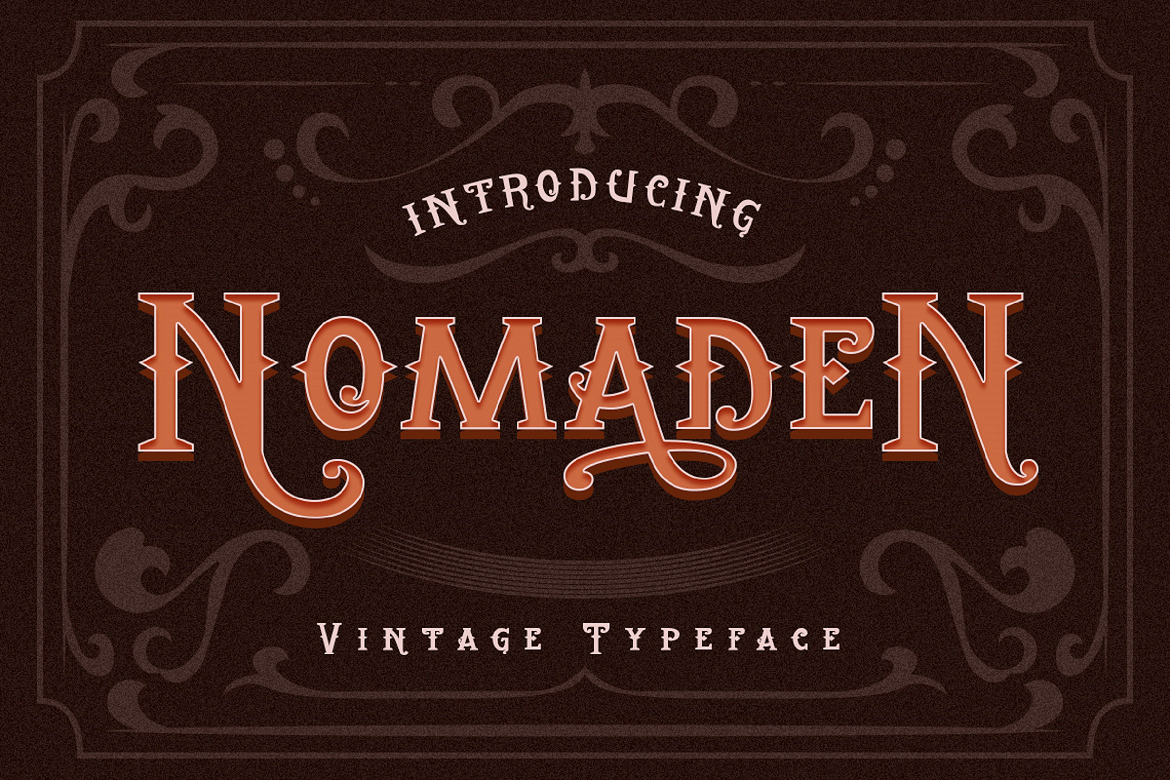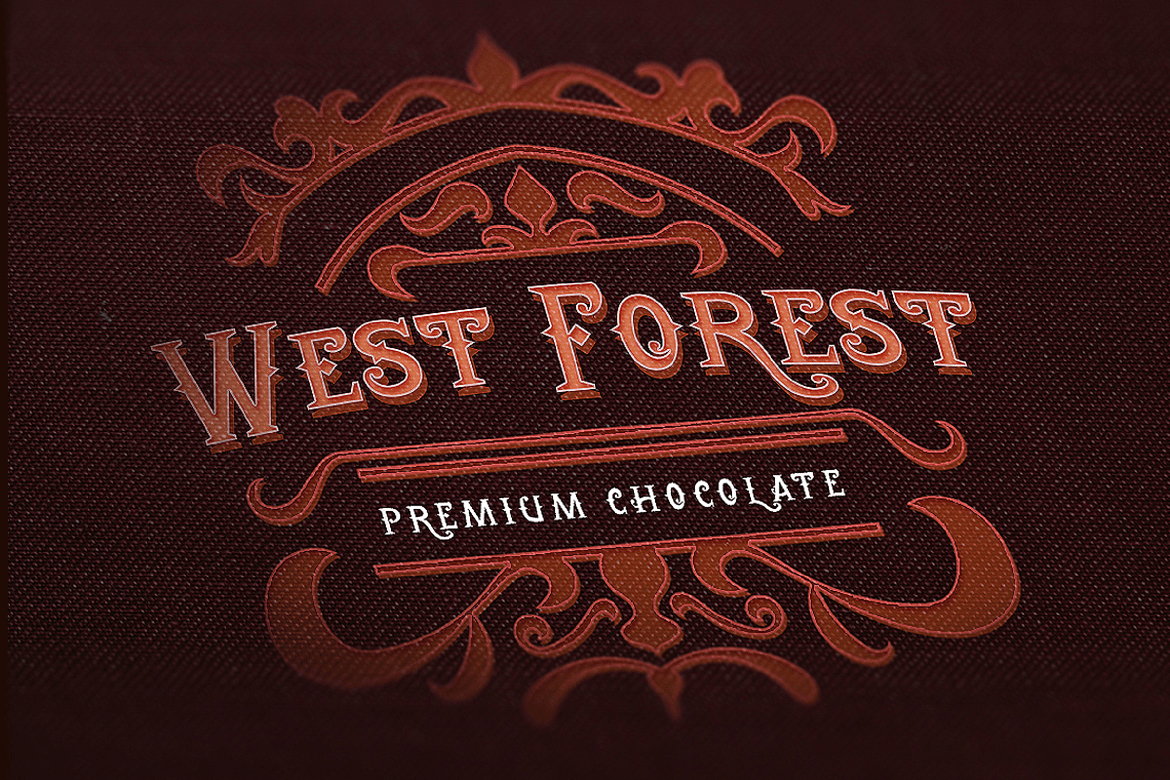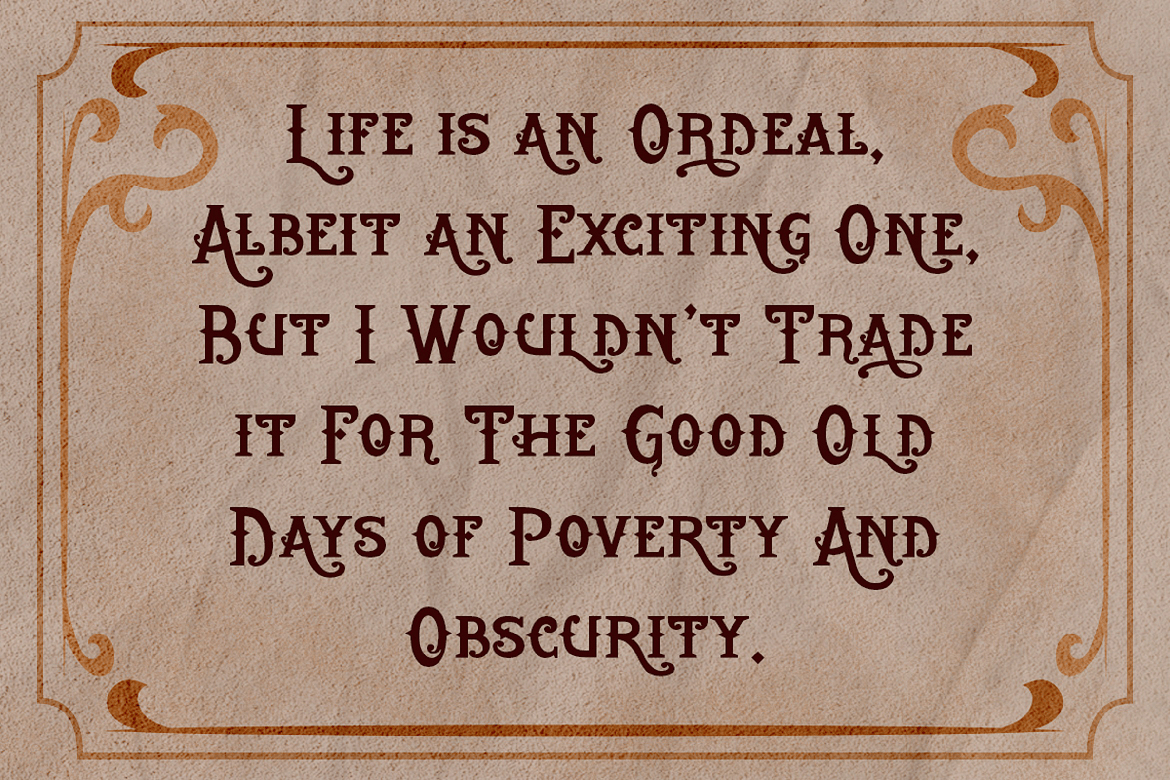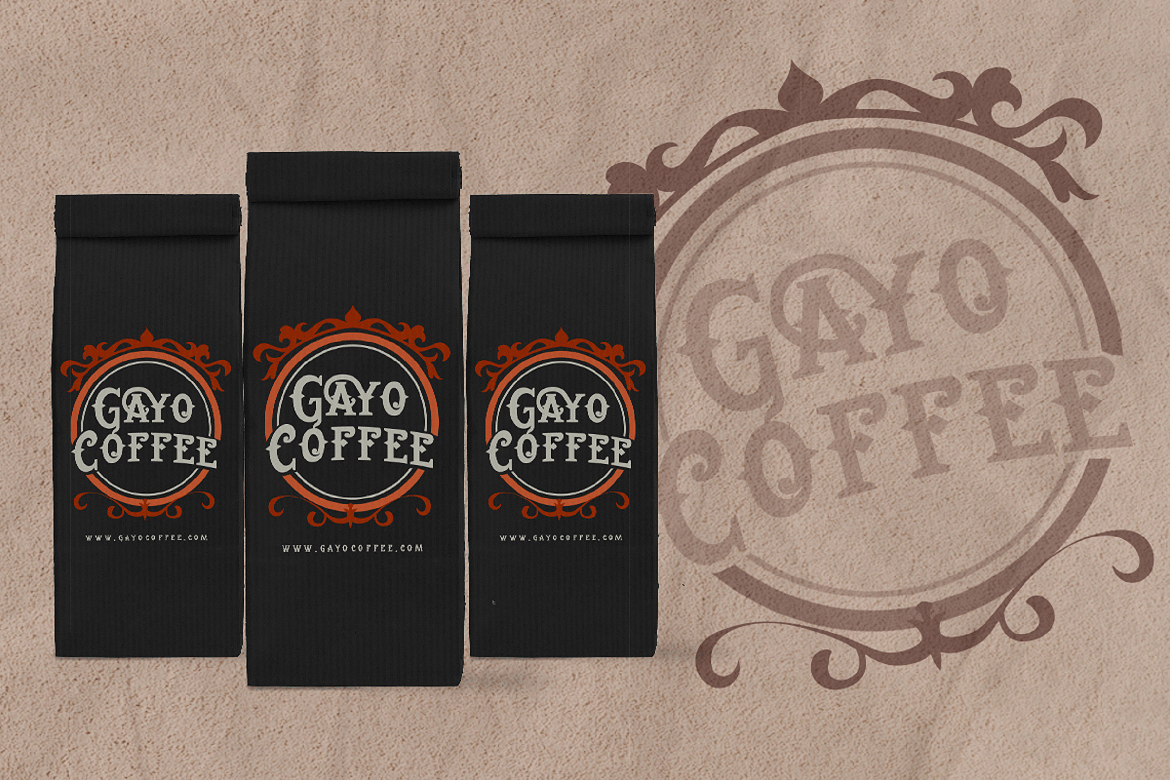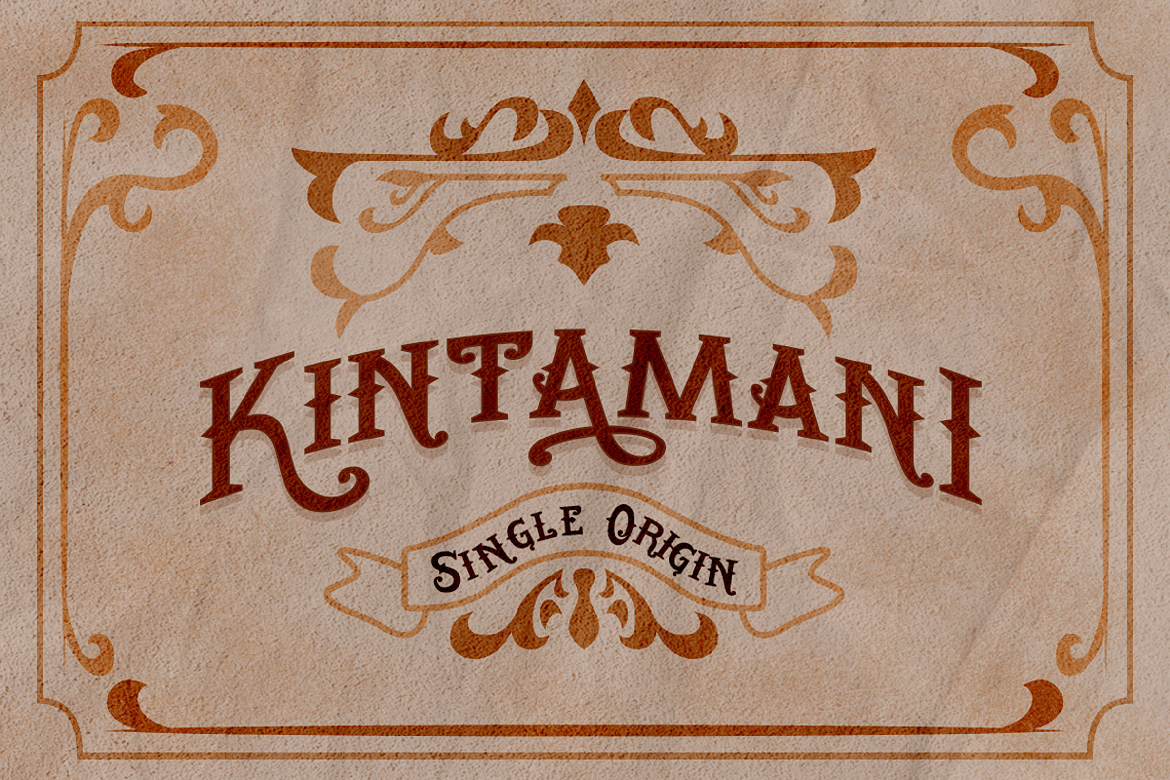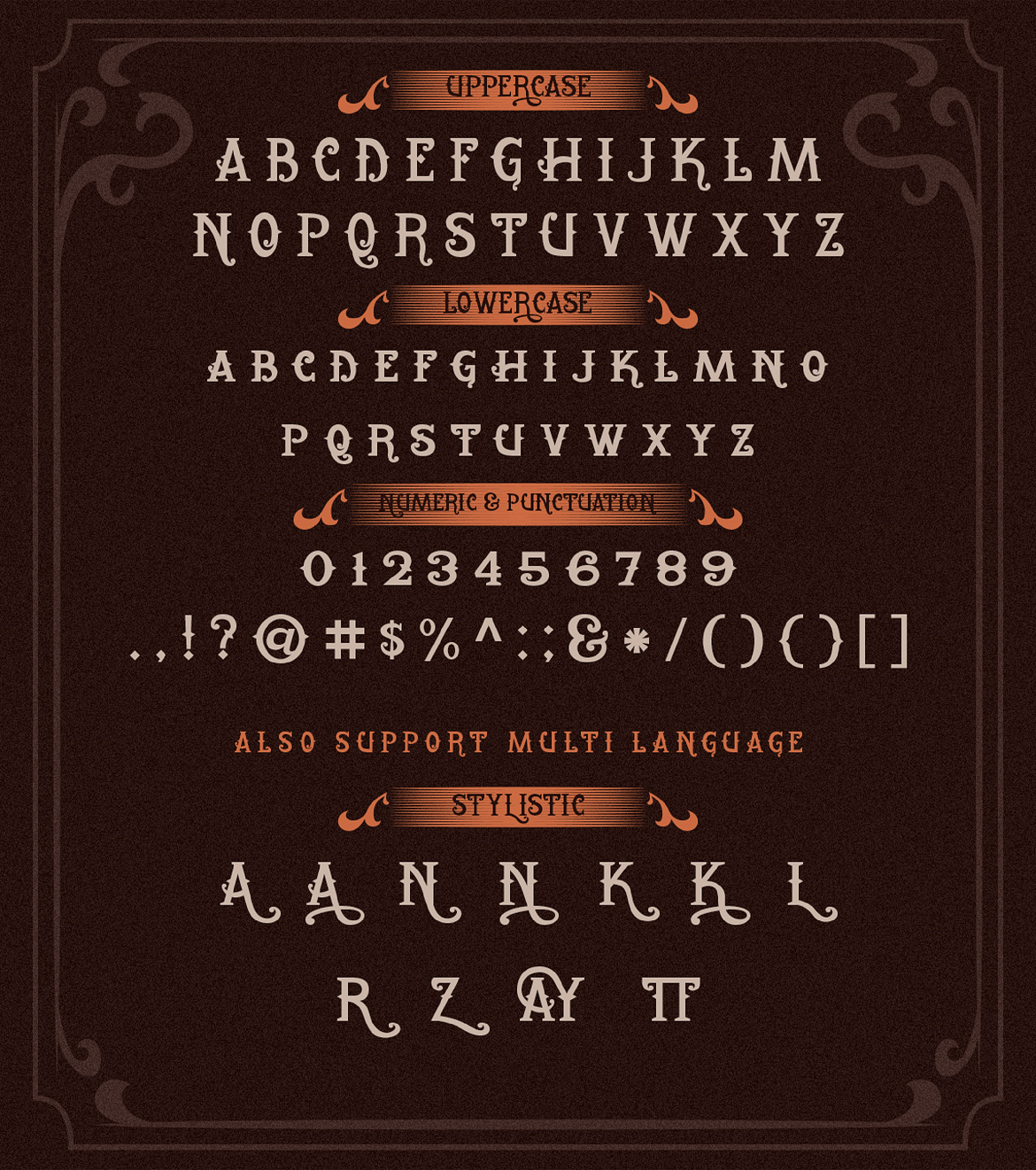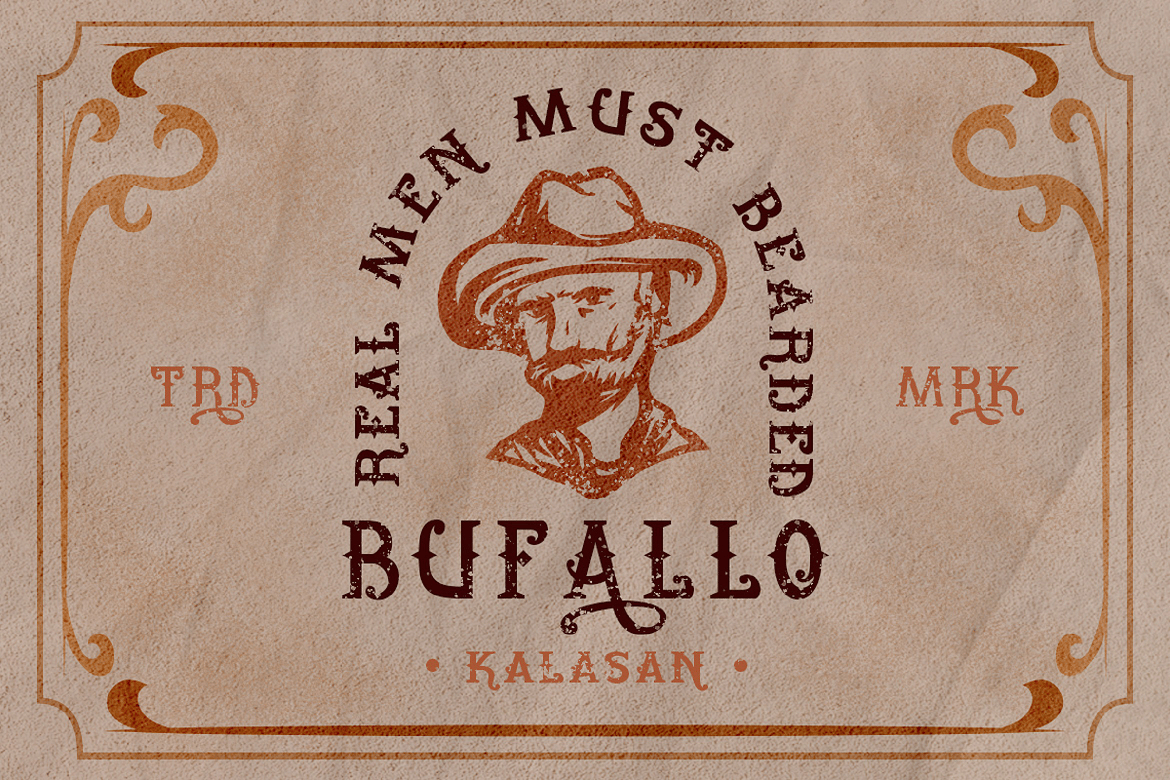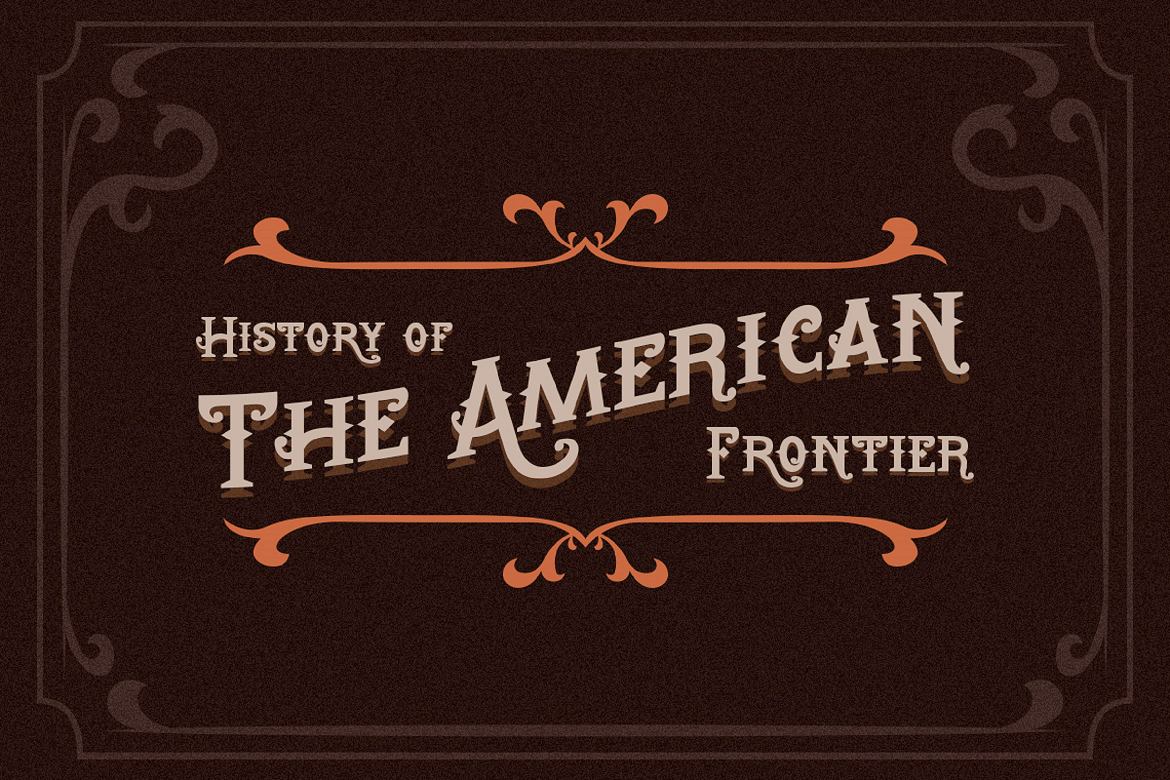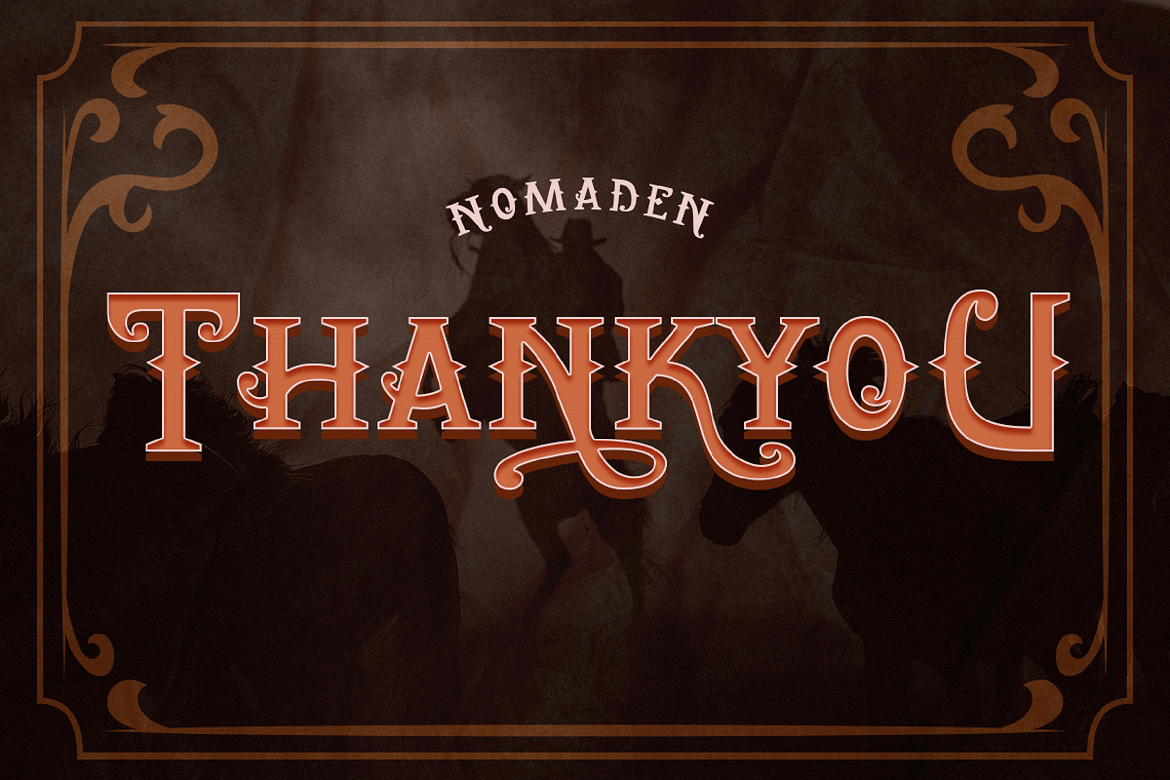
Vintage Font
Looking to make your brand unique and memorable? Maybe you wish to create advertisements that draw attention? A captivating vintage font is a great way to do it!
Introducing Nomaden– A Vintage Typeface Font.
This exquisite font will look fantastic on packaging, clothing, printed material, and everything else your brand needs. On top of this, you can also use it for websites and social media, making sure that you always stand out from the crowd.
- Multilingual & Ligature Support
- Full sets of Punctuation and Numerals